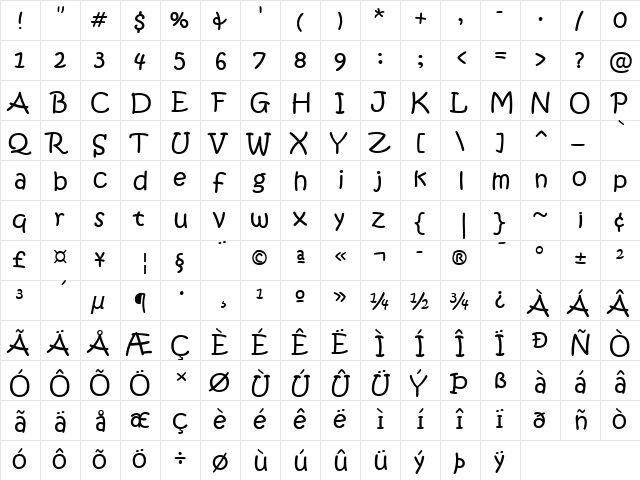
KristenITC Normal
Design Context for KristenITC Typeface
KristenITC is a composed and adaptable typeface that performs quietly and consistently across a wide range of design contexts.
Pro Tip: Pair KristenITC with a font of contrasting weight or personality to build a more expressive typographic hierarchy.